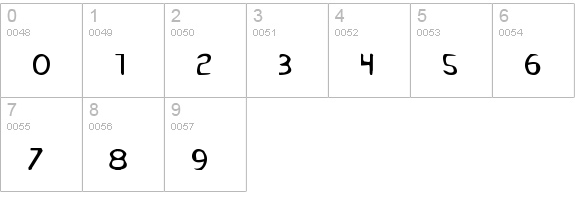
Drafting Table Expanded is a distinctive, extended-width variant in the Drafting typeface family \xE2\x80\x94 well suited to design and typography projects.
Drafting Table Expanded is a versatile and modern font that is perfect for a wide range of design projects. With its clean lines and sleek appearance, this font exudes professionalism and sophistication. The expanded version offers a unique twist, making it stand out from the crowd. What sets Drafting Table Expanded apart is not only its stylish design, but also the fact that it is available for free download at FontsMarket.com. This means that you can enjoy using this elegant font in your projects without any cost, making it a valuable addition to your font collection. Whether you are working on branding materials, website design, or any other creative project, Drafting Table Expanded is sure to elevate your work with its modern aesthetic and versatility. Download this font for free today and add a touch of elegance to your designs.